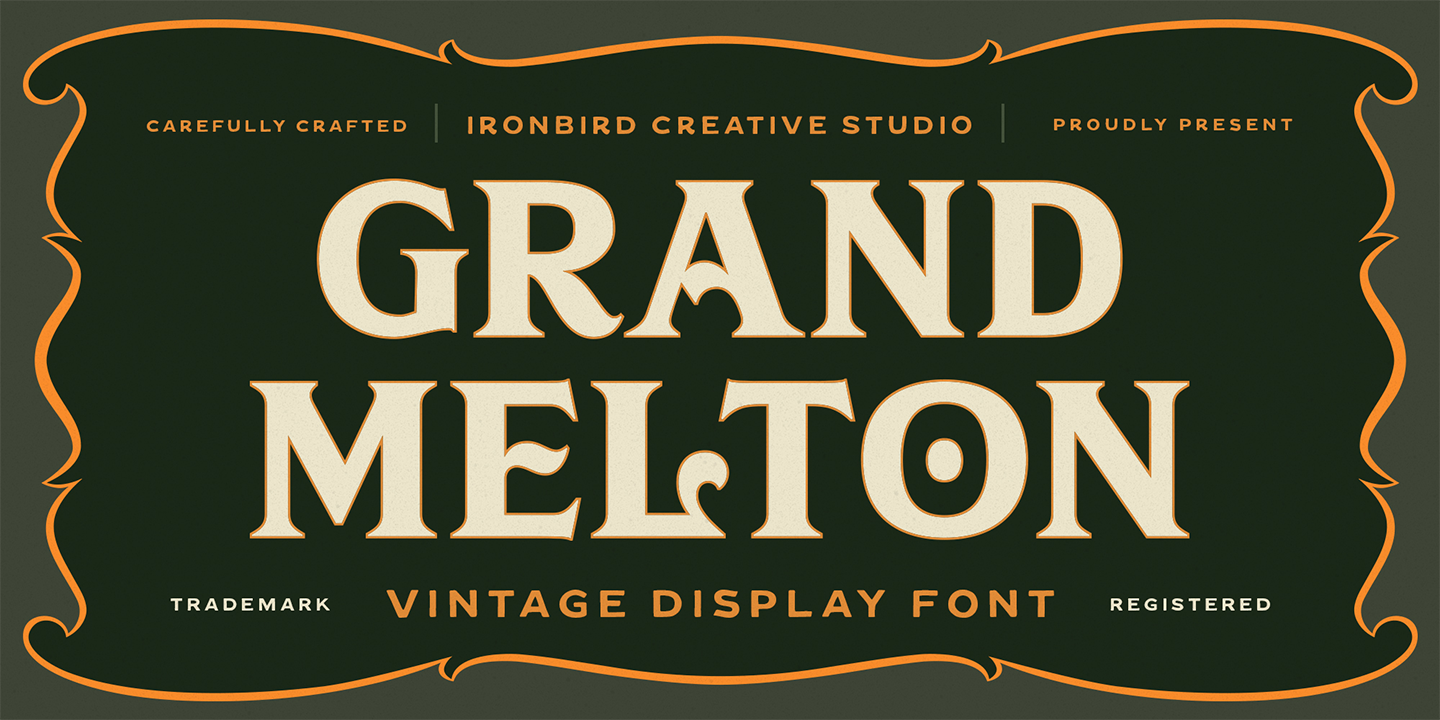
IC Grand Melton Font Free Download is a sophisticated serif typeface that exudes elegance and timeless charm. With its refined details and balanced letterforms, this font is perfect for luxury branding, editorial design, invitations, and high-end print materials.
The classic yet modern aesthetic of IC Grand Melton Font Free Download ensures excellent readability while adding a touch of grandeur to any project. Whether used for headlines, logos, or body text, this font commands attention with grace.
Add a layer of prestige and sophistication to your designs with IC Grand Melton Font Free Download. This font transforms ordinary text into a statement of style and class.